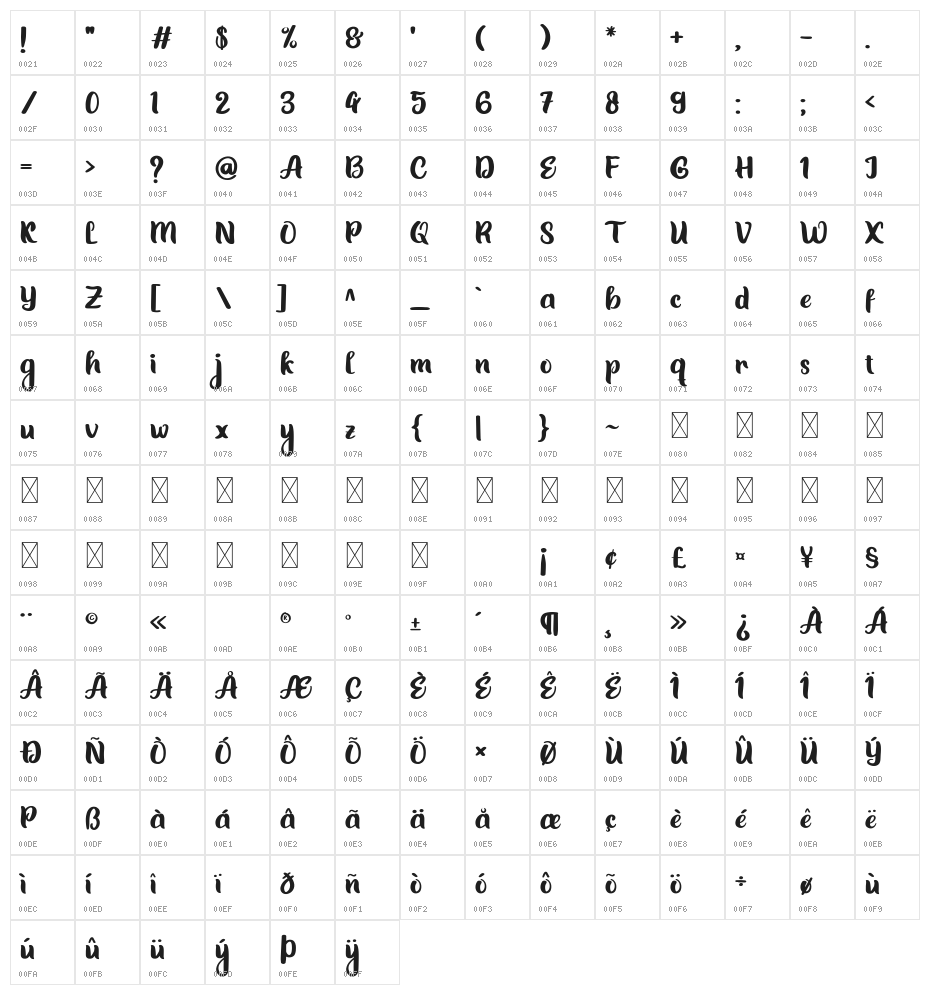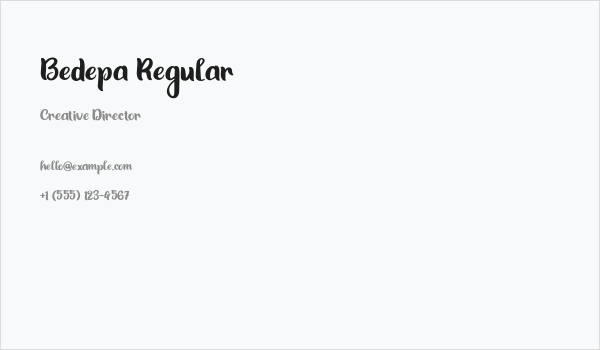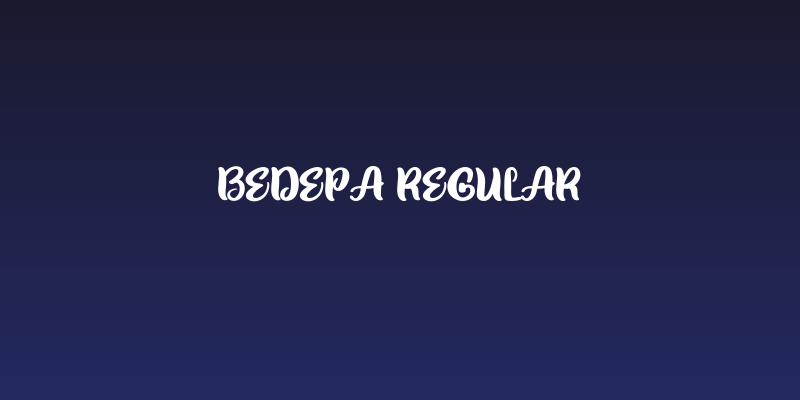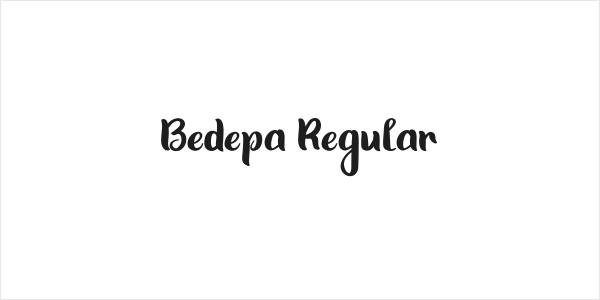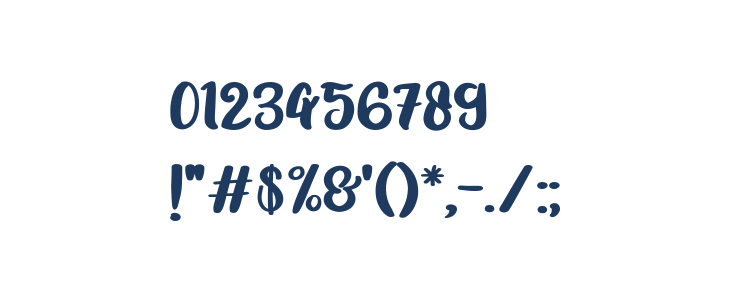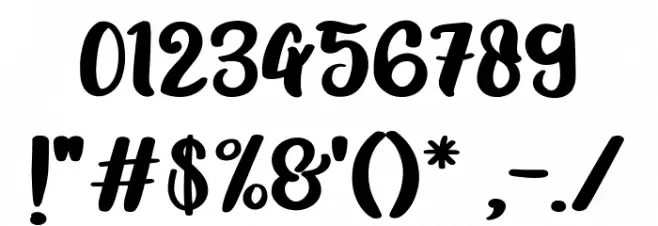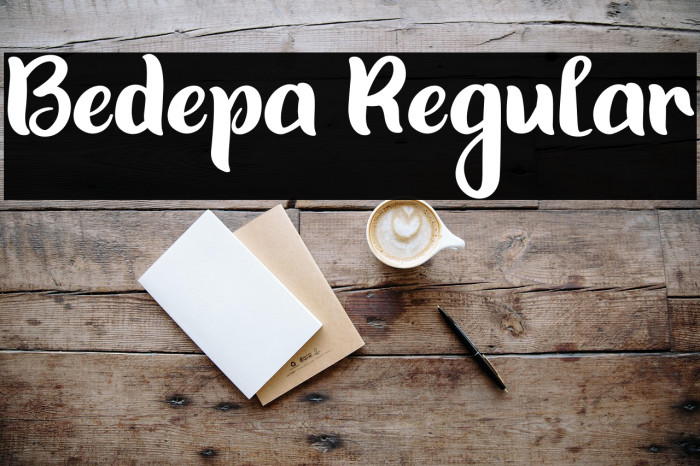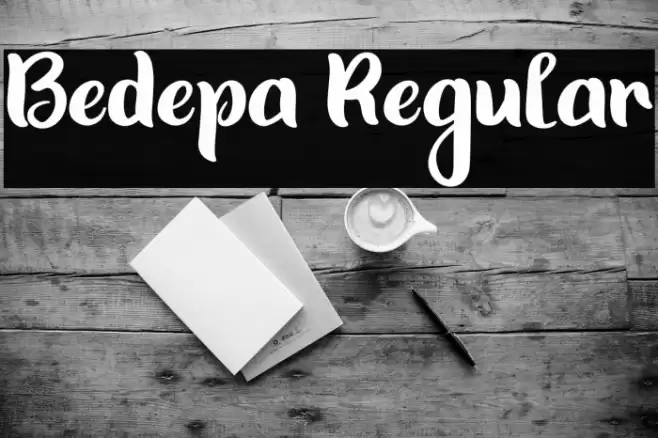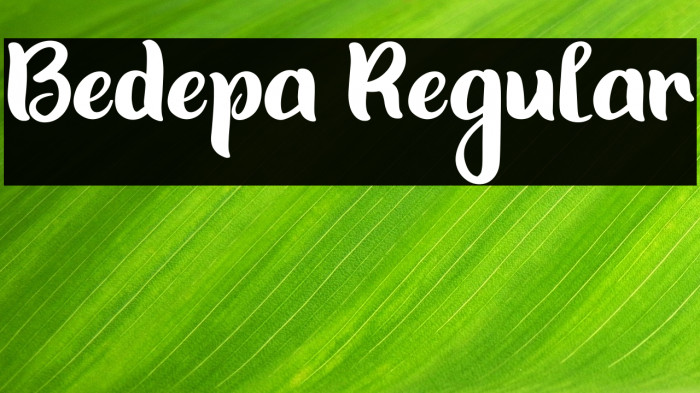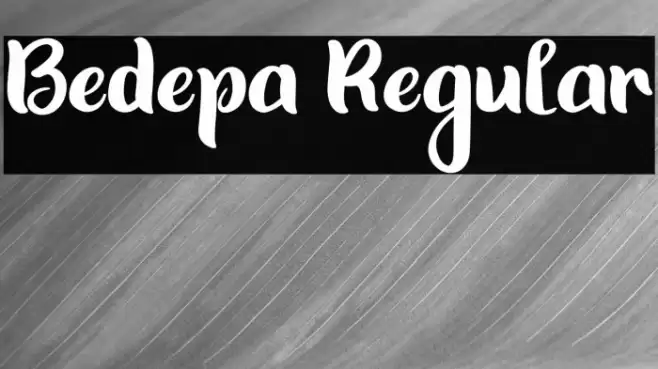
Bedepa Regular Font
Bedepa Regular Description
This font features a bold and expressive script style with a playful and dynamic flow. The characters are interconnected with smooth curves and rounded edges, giving it a lively and energetic appearance. The uppercase letters maintain a consistent height, while the lowercase letters have a slightly varied baseline, adding to the font's whimsical charm. The numbers and special characters are designed to match the overall style, ensuring a cohesive look across all text. This font is perfect for projects that require a touch of personality and flair.